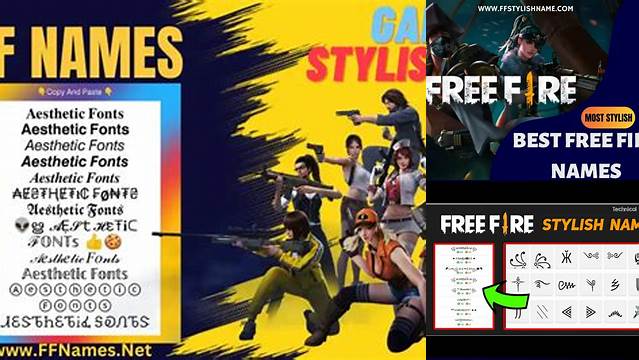
Cool Font Names For Free Fire: Stand Out!
Hey guys! Want to make your Free Fire name super cool and unique? You've come to the right place! In this article, we're diving deep into the world of font name for Free Fire. We’ll explore how to find, create, and use awesome fonts that will make you stand out from the crowd. So, let's get started and make your in-game persona truly epic!
1. Why a Unique Font Name Matters in Free Fire
Having a unique font name in Free Fire is more than just a cosmetic touch; it's a statement. In a game where thousands of players compete, a distinctive name helps you stand out and be remembered. Think of it as your personal brand within the game. A cool font can convey your style, personality, and even your skill level. Imagine seeing a name in a sleek, futuristic font – wouldn't that player seem like a pro? That's the power of a great font! It can also intimidate opponents and leave a lasting impression on teammates. Plus, it just looks awesome! It’s all about expressing yourself and making your mark in the Free Fire universe. Beyond just aesthetics, a unique font can also help prevent confusion with other players who might have similar names. If your name is easily recognizable, it makes communication smoother and gameplay more efficient.
2. Understanding Free Fire Name Limitations
Before we jump into creating cool names, it’s crucial to understand the limitations Free Fire imposes. The game has restrictions on the length of names and the characters you can use. Typically, Free Fire names have a character limit, which means you can’t go wild with super long monikers. Additionally, the game doesn’t support all types of characters and symbols. Special fonts often use Unicode characters, and Free Fire might not recognize every single one. This is why it's essential to test your chosen font and name within the game to ensure it displays correctly. Nothing’s worse than crafting the perfect name only to find it shows up as a bunch of squares or question marks! So, always double-check your creation in the game's preview to avoid any surprises. Keep these limitations in mind as you explore different fonts and design your in-game name. This will save you time and frustration, ensuring your awesome name looks just as good in the game as it does in your imagination.
3. Exploring Different Font Styles for Free Fire
When it comes to font name for Free Fire, the possibilities are endless! There’s a whole universe of styles to explore, each with its own unique vibe. Let's break down some of the most popular and eye-catching options. First, you've got your classic bold fonts. These are perfect for making a strong, impactful statement. Think of them as the gaming equivalent of shouting your name from the rooftops! Then there are the italic fonts, which add a touch of elegance and sophistication. They’re like the James Bond of Free Fire names – cool, suave, and always ready for action. For those who want something a bit more edgy, consider using gothic or medieval fonts. These styles bring a dark and mysterious feel to your name, perfect for intimidating your opponents. On the other end of the spectrum, you have futuristic and sci-fi fonts, which make your name look like it belongs in a high-tech world. And don’t forget about cursive fonts, which add a personal and artistic touch. Ultimately, the best font style depends on your personality and the image you want to project in the game. Experiment with different options until you find one that truly resonates with you. Don't be afraid to mix and match styles to create something completely unique. The goal is to find a font that not only looks cool but also represents who you are as a player.
4. Using Font Generators for Free Fire Names
Font generators are a total game-changer when it comes to creating font name for Free Fire. These handy tools let you type in your desired name and instantly see it in a variety of cool and stylish fonts. It’s like having a personal font designer at your fingertips! There are tons of font generators available online, and most of them are super easy to use. You just enter your name, browse through the different font options, and pick the one you love. One of the best things about font generators is that they often include Unicode characters and symbols that you can’t normally type on your keyboard. This opens up a whole new world of possibilities for customizing your name. You can add stars, hearts, wings, and all sorts of other cool decorations to make your name truly stand out. However, remember those Free Fire limitations we talked about? It’s still important to double-check that the font and symbols you choose are supported by the game. Most font generators will give you a preview of how your name will look in-game, but it’s always a good idea to test it out yourself. Using a font generator can save you tons of time and effort, and it’s a great way to discover fonts you might never have found otherwise. So, if you’re looking for a quick and easy way to create a unique Free Fire name, a font generator is definitely the way to go.
6. Font Name Ideas for Different Playstyles
The font name for Free Fire you choose can say a lot about your playstyle. Are you an aggressive player who loves to rush into battle? Or are you more of a strategic sniper who prefers to pick off enemies from a distance? Your font can reflect that! If you’re an aggressive player, you might want to go for a bold, impactful font that screams confidence. Think thick, strong letters that make a statement. Gothic or medieval fonts can also work well for this style, adding a touch of intimidation to your name. On the other hand, if you’re a strategic sniper, you might prefer a more subtle and refined font. Italic or cursive fonts can add a touch of elegance and sophistication, making your name look cool and collected. Futuristic fonts can also be a great choice for snipers, giving off a high-tech, precise vibe. For support players who focus on teamwork and healing, a friendly and approachable font might be the way to go. Consider using rounded fonts or fonts with a playful touch. You could even incorporate symbols like hearts or stars to show your supportive nature. Ultimately, the best font for your playstyle is the one that feels most authentic to you. Don't be afraid to experiment with different options and see what resonates with your personality and in-game role. The goal is to create a name that not only looks cool but also reflects who you are as a player.
7. Combining Fonts and Symbols for a Unique Look
To really make your font name for Free Fire pop, try combining fonts and symbols. This is where you can get super creative and craft a name that’s truly one-of-a-kind. Start by choosing a base font that you love. This will be the foundation of your name. Then, think about which symbols or characters you can add to enhance the look. Stars, hearts, wings, and other decorative elements can add a personal touch and make your name more visually appealing. You can also use symbols to replace letters or create interesting patterns within your name. For example, you might use a lightning bolt symbol in place of the letter “Z” to add an edgy vibe. Or, you could surround your name with stars to make it sparkle. When combining fonts and symbols, it’s important to strike a balance. You don’t want your name to look too cluttered or overwhelming. Less is often more. Choose symbols that complement your font and enhance the overall aesthetic. Also, remember to consider the legibility of your name. While it’s fun to get creative, you still want other players to be able to read your name easily. Test your name in the game preview to see how it looks in action. Combining fonts and symbols is a fantastic way to express your personality and create a name that stands out from the crowd. So, don't be afraid to experiment and have fun with it!
8. The Psychology of Font Choices in Gaming
Believe it or not, the font name for Free Fire you choose can actually impact how other players perceive you. Fonts have psychological associations, and the font you use can subtly convey certain messages. For example, bold, strong fonts often evoke feelings of power and confidence. If you want to intimidate your opponents, a bold font can be a great choice. On the other hand, cursive fonts tend to be associated with elegance and sophistication. If you want to project a refined and stylish image, a cursive font might be the way to go. Futuristic fonts often convey a sense of innovation and high-tech skill. If you want to look like a cutting-edge player, a futuristic font can help you achieve that. Even the color of your font can influence perceptions. Bright, vibrant colors can make your name stand out and create a sense of excitement, while darker colors can convey seriousness and intensity. Of course, font psychology is just one piece of the puzzle. Your gameplay and in-game behavior will ultimately shape how other players view you. But choosing a font that aligns with your personality and playstyle can certainly help you make a strong first impression. So, next time you’re crafting your Free Fire name, think about the message you want to send and choose your font accordingly.
9. Common Mistakes to Avoid When Choosing a Free Fire Font Name
Choosing the perfect font name for Free Fire can be exciting, but it’s easy to make a few common mistakes along the way. Let’s talk about some pitfalls to avoid so you can create a name that’s both awesome and effective. First, avoid fonts that are too difficult to read. While fancy fonts can look cool, if other players can’t easily decipher your name, it defeats the purpose. Opt for fonts that are legible at a glance, especially in the heat of battle. Another mistake is using too many symbols or special characters. A few well-placed symbols can add flair to your name, but overloading it with decorations can make it look cluttered and messy. Remember, less is often more. Don’t forget to double-check that your chosen font and symbols are supported by Free Fire. Some Unicode characters might not display correctly in the game, resulting in a name that looks like a bunch of squares or question marks. Always preview your name in-game before finalizing it. It’s also a good idea to avoid using generic or overused fonts. If your name looks just like everyone else’s, it won’t help you stand out. Aim for something unique and original that reflects your personality. Finally, don’t rush the process. Take your time to explore different font options and find one that truly resonates with you. Your Free Fire name is a reflection of who you are as a player, so it’s worth investing the time to get it right.
23. Using Special Characters in Font Names (Do's and Don'ts)
Special characters can add a unique flair to your font name for Free Fire, but it's important to use them judiciously. A few well-placed symbols can make your name stand out, but too many can make it look cluttered and difficult to read. So, let's talk about the dos and don'ts of using special characters in your Free Fire name. Do use symbols that complement your font style and personality. A star, a heart, or a simple geometric shape can add a touch of visual interest without overwhelming your name. Do use symbols to replace letters or create patterns. For example, you could use a lightning bolt symbol in place of the letter